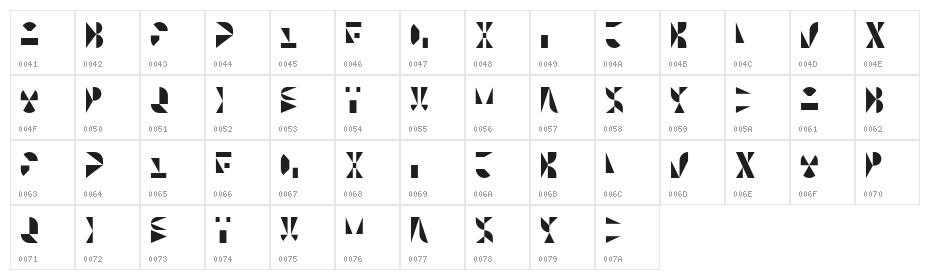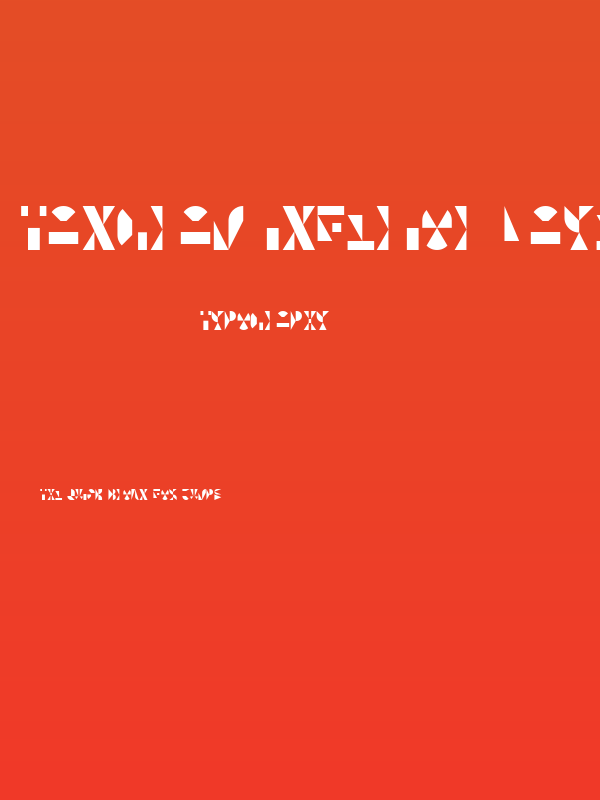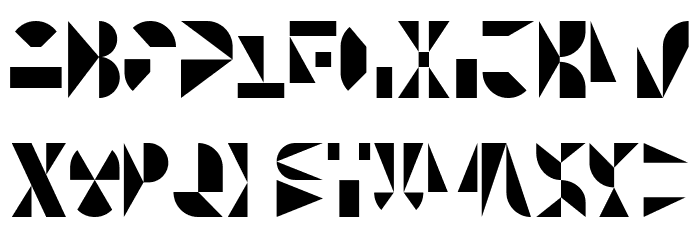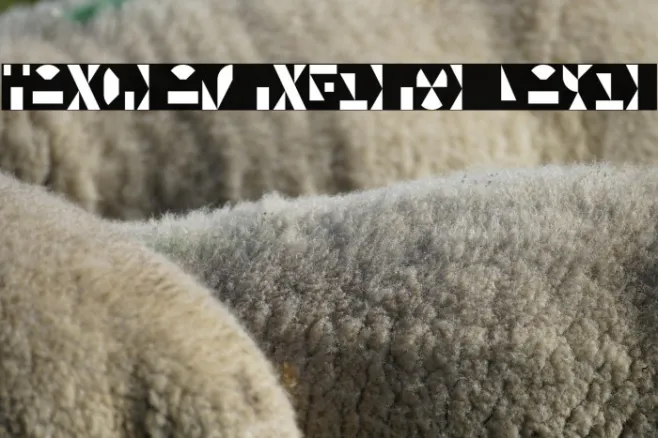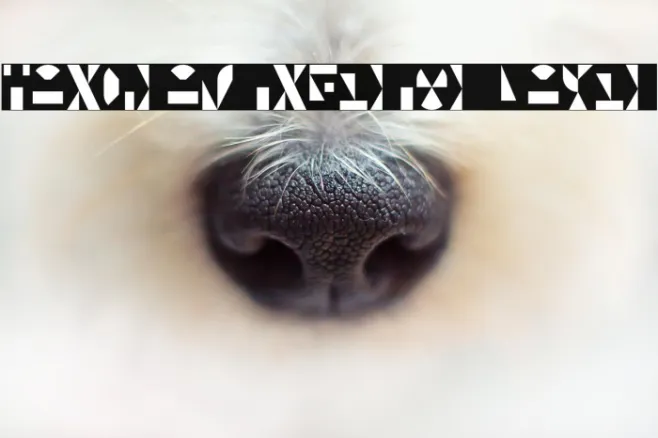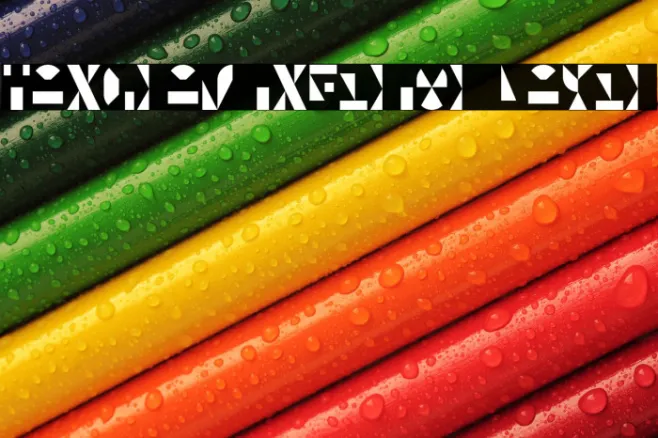
Tangram Inferior Layer Font
Tangram Inferior Layer Description
This font features a highly geometric and abstract design, reminiscent of tangram puzzles. Each character is constructed from bold, angular shapes, creating a visually striking and modern appearance. The use of sharp angles and clean lines gives it a futuristic feel, while the consistent use of black fills adds to its boldness. The characters are not immediately legible, requiring a closer look to discern each letter or number, making it ideal for artistic or decorative purposes. The font's unique style makes it stand out, perfect for projects that aim to capture attention and convey a sense of innovation and creativity.
| Use Case | Logos, Headlines, Artistic displays |
| Proposed Projects | Ideal for modern art projects, futuristic branding, creative posters, and unique logo designs. |